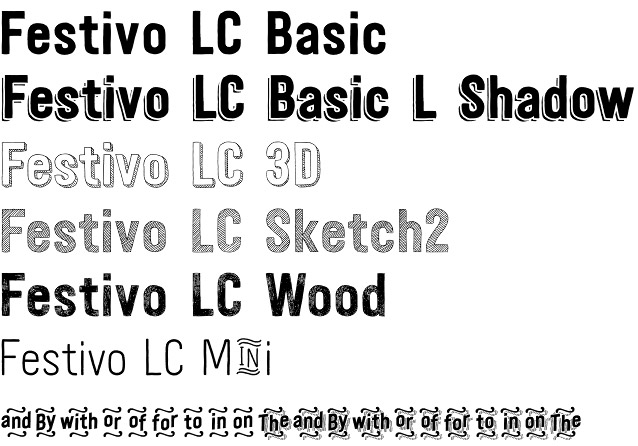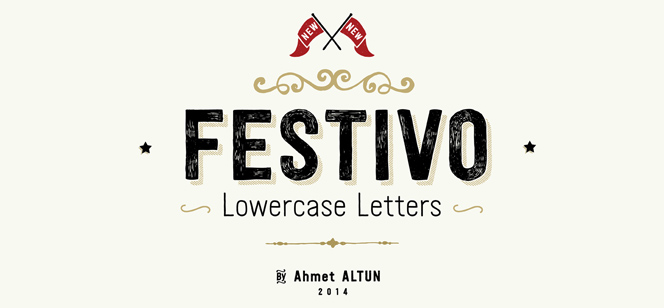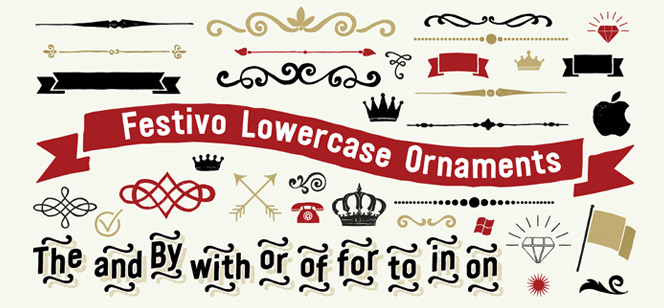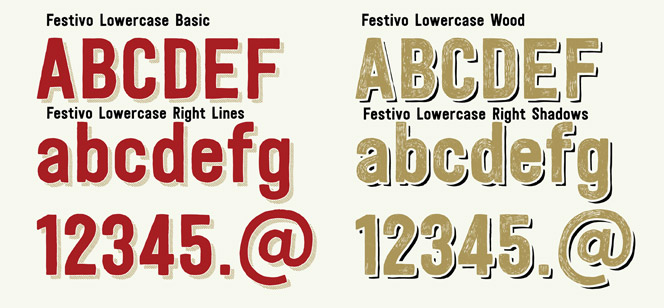
Festivo LC font
Festivo LC font by the Turkish graphic designer Ahmet Altun (Ahmet Altun type foundry) is the lowercase complement to the Festivo Letters font family – a handmade layered typeface. Furthermore Festivo LC font comes with some new sketches, shadows, and ornaments. The font family features 21 variations consisting of different layers, plus ornamental and catchwordy Extras.
Festivo LC font family is designed for use in various combinations of styles and colours. The kernings and the metrics of Festivo LC Fonts are not the same as Festivo Letters font’ kernings and metrics. It is advised not to mix them together. The multiple possibilities of the Festivo Font Family allows you to create great design works like posters, magazines, printings, t-shirts, etc.
Ahmet Altun is Turkish designer, graduate of the Hacettepe University. He is interested in art, graphics, calligraphy, typography and Turkish Calligraphy.